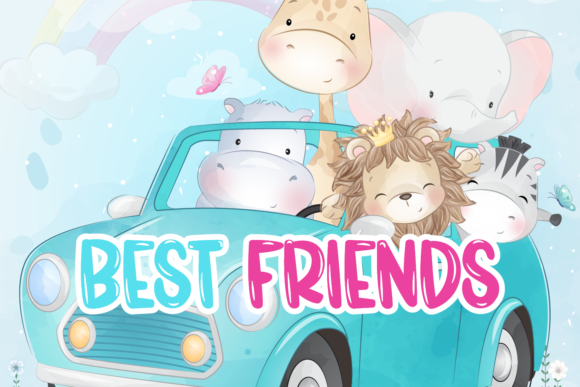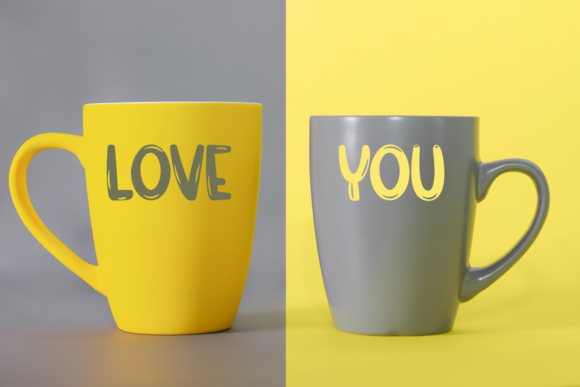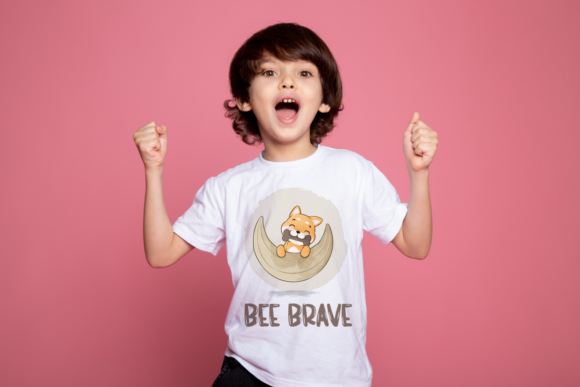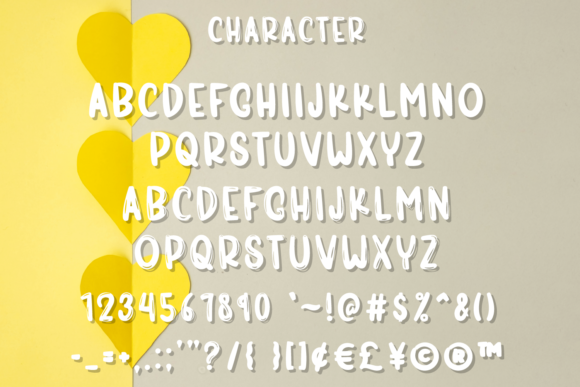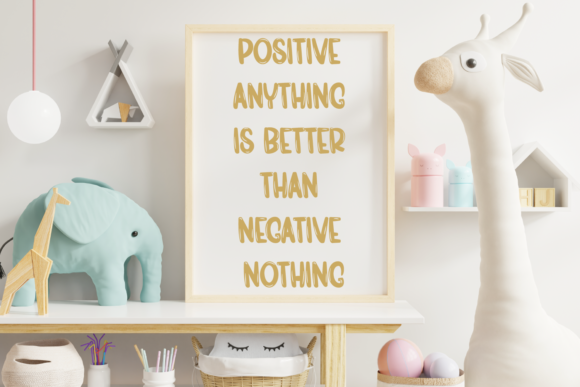
Cute Lion Font: Add a Playful Touch to Your Designs
Are you looking for a font that can add a dash of playfulness and cheerfulness to your designs? Look no further than the Cute Lion font! This adorable display font is perfect for designers, crafters, and educators who want to create engaging and fun projects for kids and school assignments.
What is Cute Lion Font?
Cute Lion is a playful display font that boasts a cheerful look, making it ideal for use in a variety of creative projects. Its childlike playfulness is sure to capture the attention of your audience and add a touch of whimsy to your designs. Whether you’re working on a kids’ project, a school assignment, or simply want to add some fun to your designs, Cute Lion font is the perfect choice.
Key Features of Cute Lion Font
• Playful and Cheerful: Cute Lion font has a fun and lively vibe that’s perfect for creating engaging and interactive designs.
• Childlike Appeal: The font’s childlike playfulness makes it ideal for use in kids’ projects, school assignments, and other creative endeavors.
• Display Font: Cute Lion font is a display font, making it perfect for use in headlines, titles, and other prominent text elements.
• Easy to Read: Despite its playful nature, Cute Lion font is easy to read, making it suitable for use in a variety of contexts.
Uses for Cute Lion Font
Cute Lion font is versatile and can be used in a variety of creative projects, including:
• Kids’ Projects: Use Cute Lion font to add a playful touch to kids’ projects, such as posters, flyers, and brochures.
• School Assignments: Add some fun and personality to school assignments, such as presentations, reports, and essays.
• Crafting Projects: Use Cute Lion font to add a personal touch to crafting projects, such as scrapbooking, card making, and DIY signs.
• Digital Designs: Incorporate Cute Lion font into your digital designs, such as social media graphics, blog posts, and website headers.
Tips for Using Cute Lion Font
Here are some tips for getting the most out of Cute Lion font:
• Use it Sparingly: While Cute Lion font is playful and fun, it can be overwhelming if used excessively. Use it sparingly to add emphasis and create visual interest.
• Pair it with Other Fonts: Experiment with pairing Cute Lion font with other fonts to create a unique and visually appealing combination.
• Experiment with Colors: Cute Lion font looks great in a variety of colors, so don’t be afraid to experiment and find the perfect hue for your design.
Cute Lion font is a playful and cheerful display font that’s perfect for adding a touch of whimsy to your designs. Its childlike appeal makes it ideal for use in kids’ projects, school assignments, and other creative endeavors. With its ease of use and versatility, Cute Lion font is sure to become a favorite among designers, crafters, and educators.